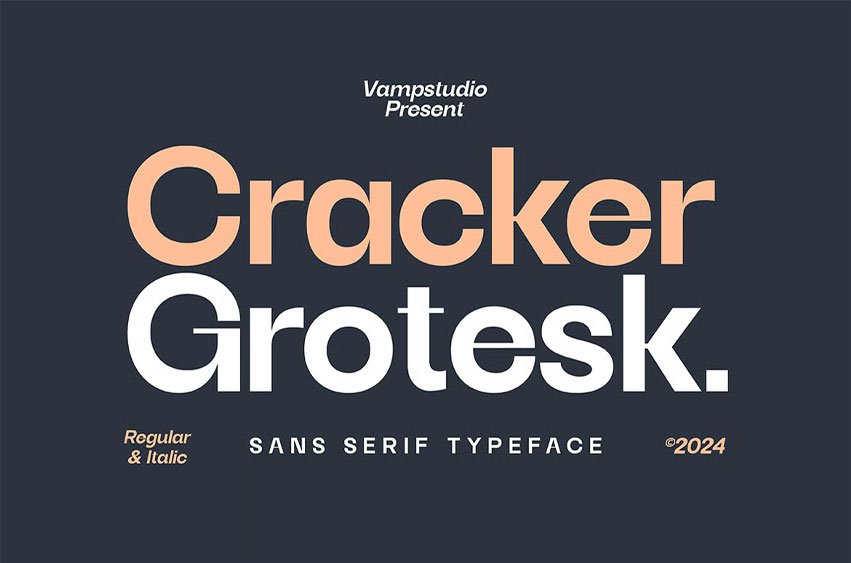
Cracker Grotesk Font is a clean and modern geometric sans-serif font designed for strong visual clarity and professional branding. With smooth curves, balanced proportions, and bold weight options, this typeface brings a fresh contemporary look to any project. Its minimalist shapes and versatile structure make it suitable for headlines, editorial layouts, product packaging, corporate identity, social media, and UI design.
Cracker Grotesk also performs beautifully in large typography, giving your titles a powerful presence, while still remaining highly readable in small text settings. Inspired by classic European grotesks with a modern aesthetic twist, this font delivers simplicity, elegance, and maximum usability.
- Complete uppercase & lowercase alphabet
- Clean geometric shapes for professional layouts
- Smooth kerning & modern letter proportions
- Numbers, punctuation, & symbols
- Ideal for branding, editorial design, web design, and product packaging
Bring a strong modern identity to your designs with Cracker Grotesk — a reliable, versatile, and stylish grotesk typeface.